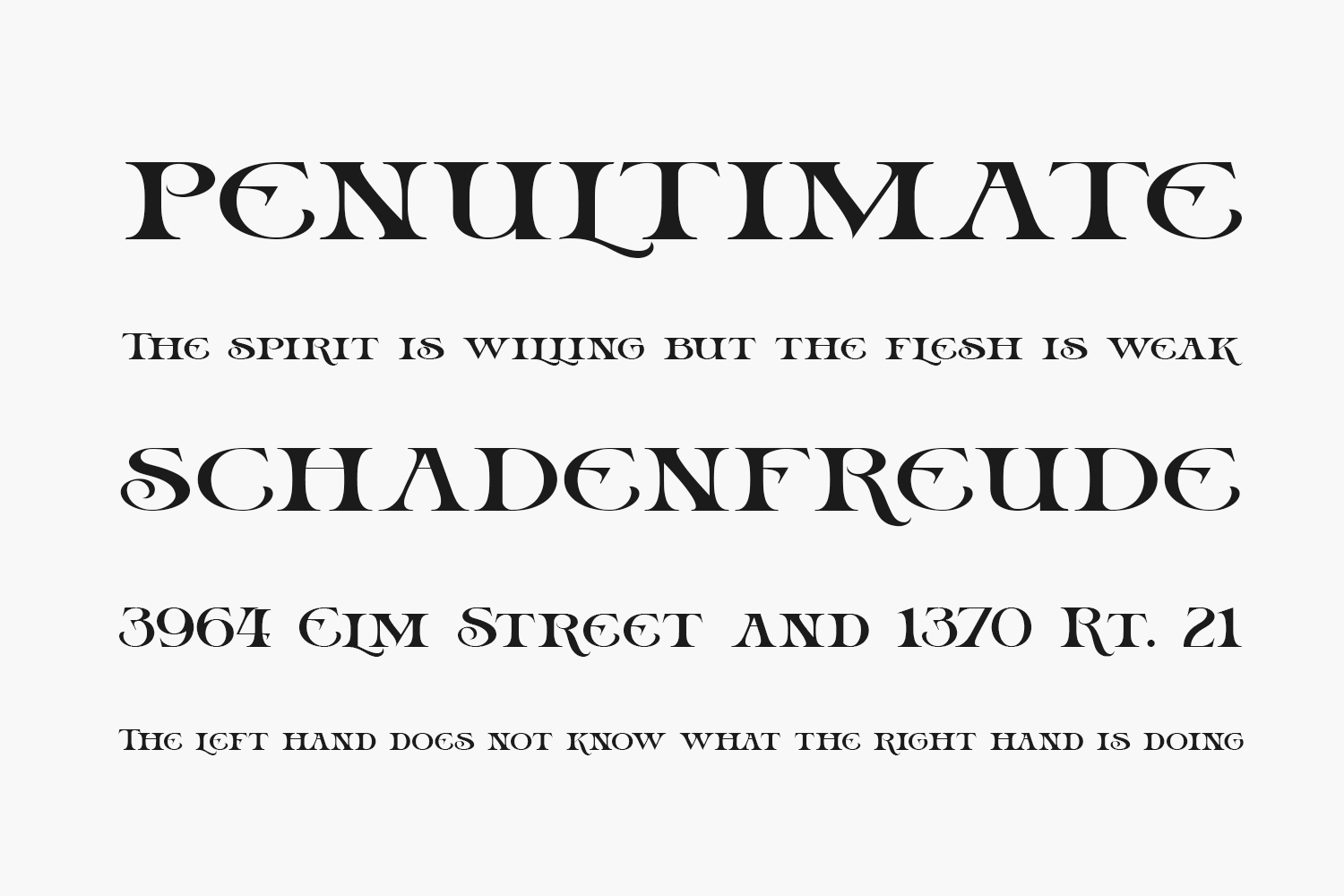
Guacheva is a stylish and elegant serif font designed by Ilhamtaro to bring vintage charm and refined beauty to your creative projects. With its graceful curves, long hooks, and expressive detailing, this free decorative typeface works perfectly for crafting romantic logos, wedding stationery, fashion branding, product packaging, and more. Available in TTF format — ideal for designers seeking a sophisticated serif font that blends femininity with bold presence.
- Vintage-Inspired Style: Combines classic serifs with soft hooks for a timeless, artistic appearance.
- Ideal for Elegant Projects: Perfect for luxury brands, bridal kits, or vintage-style packaging needing a personal touch.
- Logos & Branding: Adds elegance to brand identities for lifestyle blogs, fashion labels, or boutique shops.
- Wedding Invitations: Brings warmth and charm to formal stationery sets, RSVP cards, and event signage.
- Packaging Design: Ideal for product labels on perfumes, candles, or artisanal goods needing a premium look.
- Social Media Graphics: Creates bold text overlays for Instagram Stories, Pinterest pins, or TikTok videos with a refined tone.
- Editorial Headers: Stands out in magazine covers, blog headers, and advertising campaigns with a human touch.
Design Tips with Guacheva
- Glyphs: Uppercase (A-Z), lowercase (a-z) with height variation, numerals, punctuation.